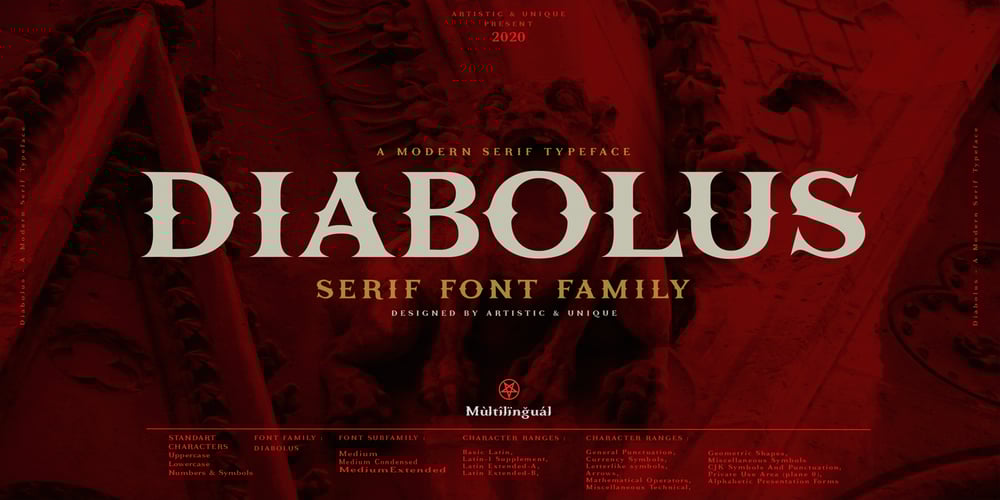
Diabolus Font Family was designed by Osman Taner Kucukgenc and published by Artisticandunique. Diabolus contains 3 styles and family package options. Diabolus – Serif Font Family – Multilingual – 3 StyleOn the basis of Diabolus, it is a mix of the old-fashioned Gothic serif family. The old-style serif combination combines modern aesthetics with fantasy and Gothic serif fonts, making Diabolus a versatile family that can be used in many different design projects.This font offers a wide variety of styles to help you discover the best mood for your projects, from body text to big headlines, from classic to modern and bold styles.Well suited for books and magazines, magazine and album covers, editorial, headlines, websites, logos, invitations, branding, advertising, and more.CHARACTER RANGES : Basic Latin, Latin-1 Supplement, Latin Extended-A, Latin Extended-B, General Punctuation, Currency Symbols, Letterlike symbols, Arrows, Mathematical Operators, Miscellaneous Technical, Geometric Shapes, Miscellaneous Symbols CJK Symbols And Punctuation, Private Use Area (plane 0), Alphabetic Presentation Forms With this font you can create your unique designs.If you have a question, please contact me.Have a good time.